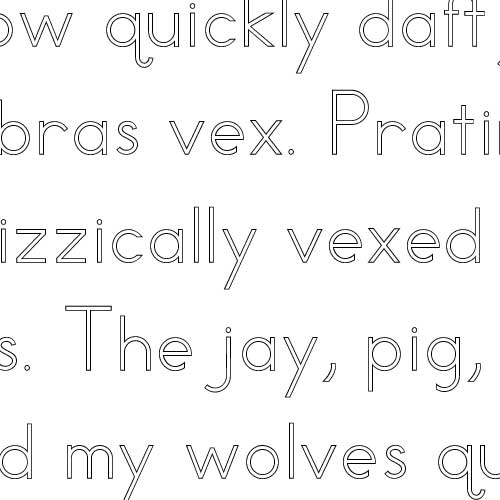
ZP Primer Print - Outlined - FN
All new tradtional print primer with international glyphs, created in an outline style. Have your student use the outline to trace the letters inside! Perfect to help young students learn to print and read.